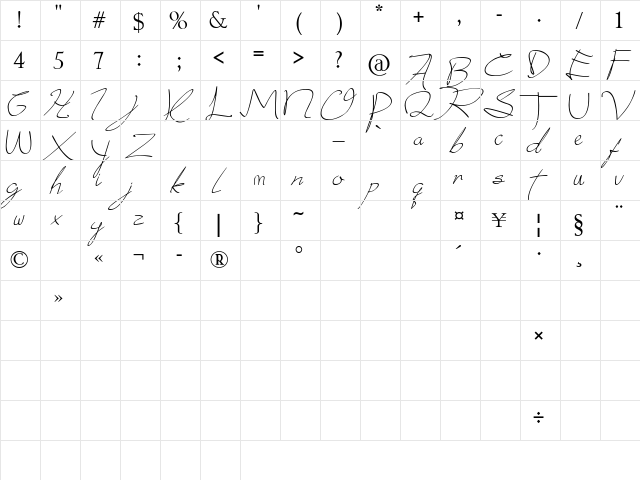
donatas script Regular
| Designer | Gigih |
Design Context for donatas script Typeface
donatas script brings a calligraphic fluidity to the page — its connecting strokes and expressive curves give it an unmistakably human quality.
Font Pairing: Combine donatas script with a simple geometric sans for maximum contrast — the tension between flowing curves and clean structure is a classic typographic pairing.
Pro Tip: Pair donatas script with a clean sans-serif for supporting text. The contrast between fluid script and geometric structure creates an elegant typographic hierarchy.